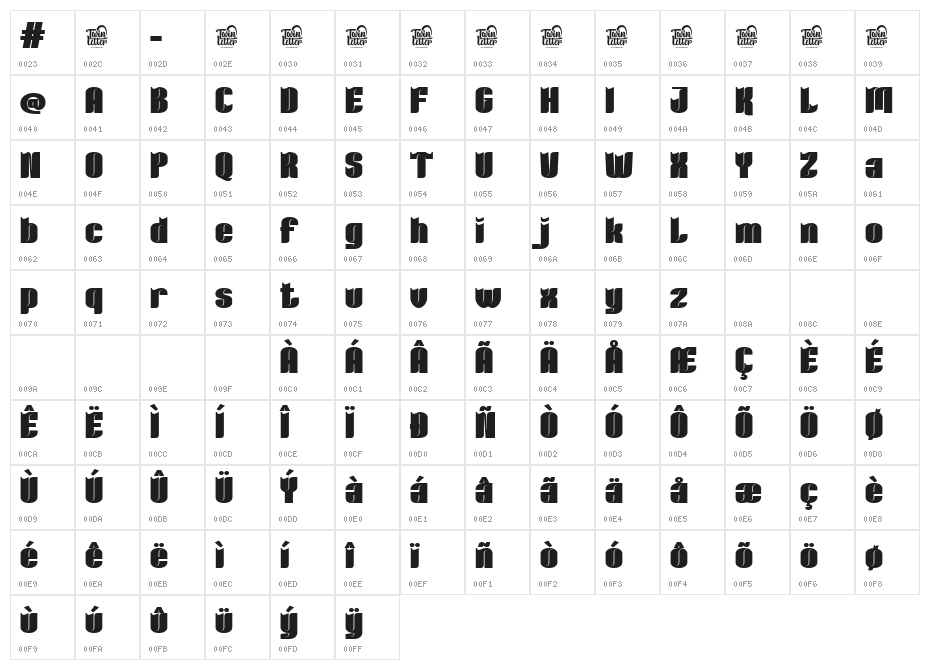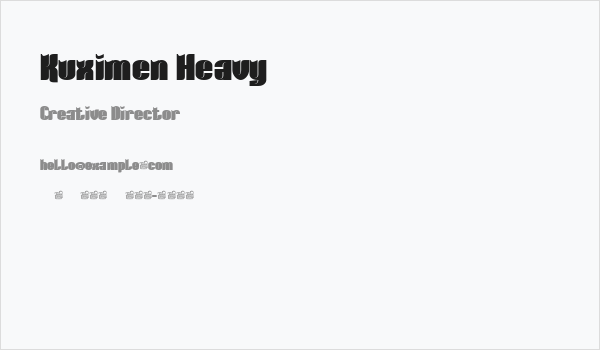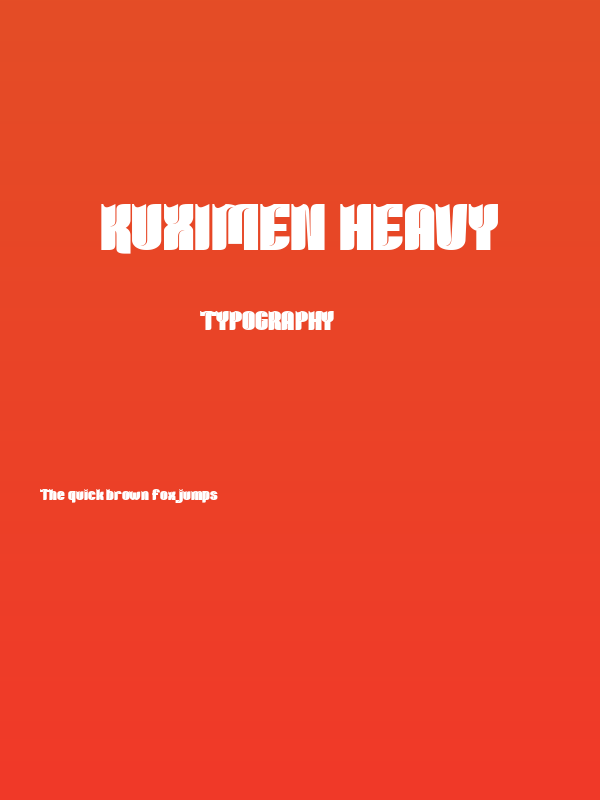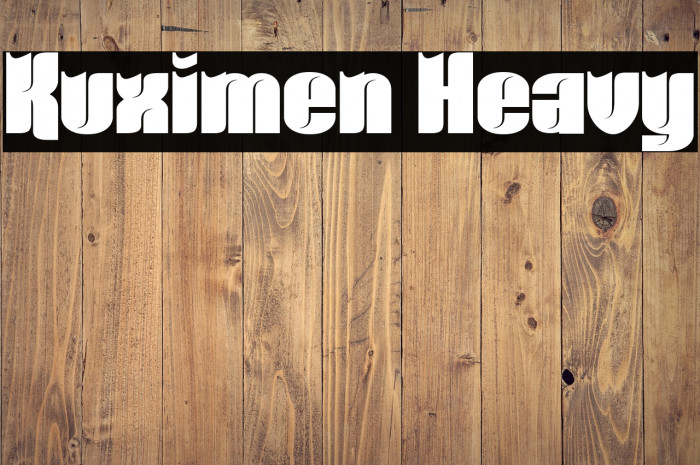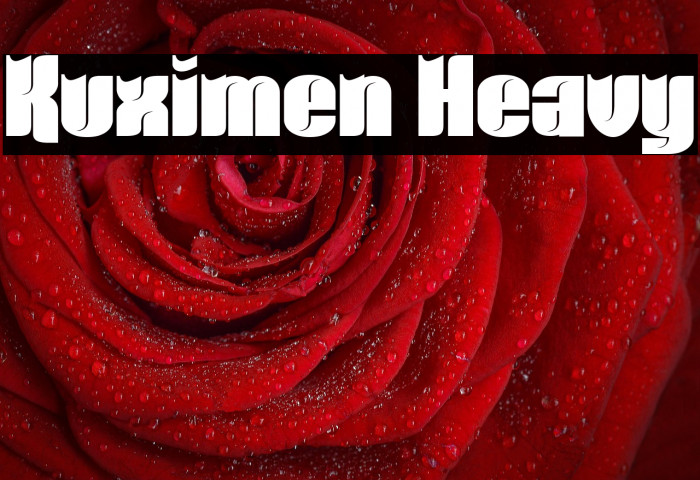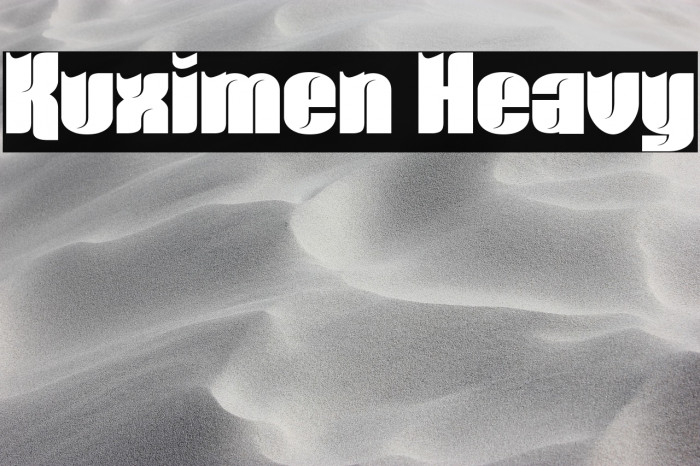
Kuximen Heavy Font
Kuximen Heavy Description
This font exhibits a bold and striking appearance, characterized by its thick, block-like letterforms. The uppercase and lowercase letters maintain a consistent weight, creating a uniform and powerful visual impact. The design features sharp angles and clean lines, giving it a modern and assertive look. The characters are tightly spaced, enhancing the compact and robust feel of the font. Its high contrast in stroke thickness further emphasizes its boldness, making it highly suitable for attention-grabbing headlines and impactful designs.
| Proposed Projects | Ideal for branding, posters, headlines, and any design requiring a strong visual impact. |